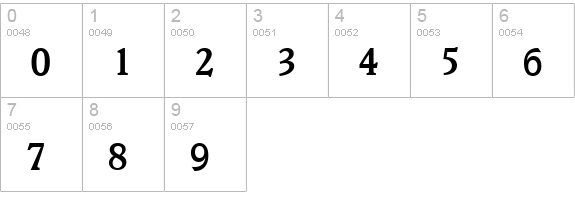
VeroneseMediumTab Font Details
VeroneseMediumTab font is a stunning and versatile typeface that captures the essence of elegance and sophistication. With its precise letterforms and balanced proportions, this font exudes a sense of timeless beauty. Designed with legibility in mind, VeroneseMediumTab is perfect for a wide range of applications, from editorial design to branding and advertising. Its medium weight strikes the perfect balance between readability and visual impact, making it suitable for both headlines and body text. What sets VeroneseMediumTab apart is its unique blend of classic and modern elements. The graceful curves and refined details of this font harken back to traditional calligraphy, while its clean lines and contemporary touches give it a fresh and contemporary feel. One of the most appealing aspects of VeroneseMediumTab font is that it is free. Yes, you heard it right! This exquisite typeface is freely available to download at FontsMarket.com. Whether you are a professional designer or a casual user, you can now enhance your projects with this exceptional font without any cost. So why wait? Experience the beauty and versatility of VeroneseMediumTab font today. Download it for free at FontsMarket.com and let your creativity soar.